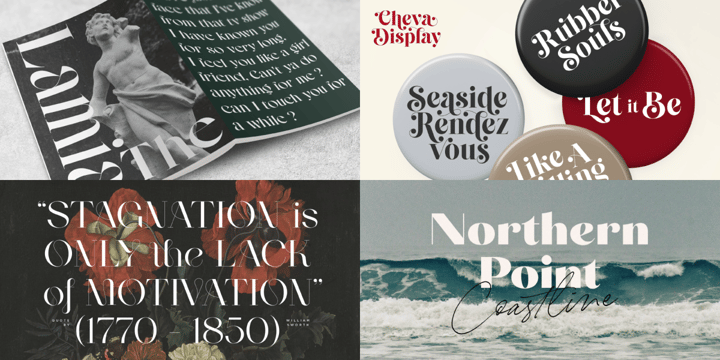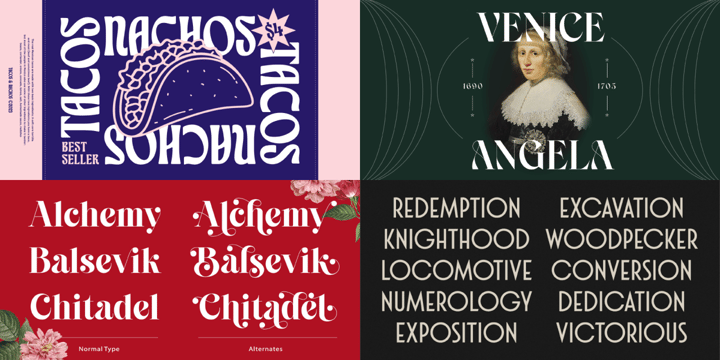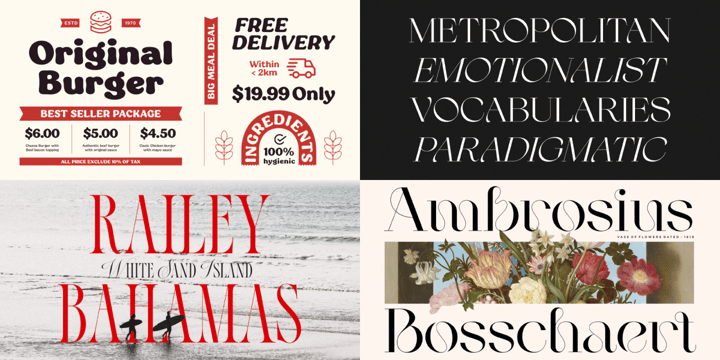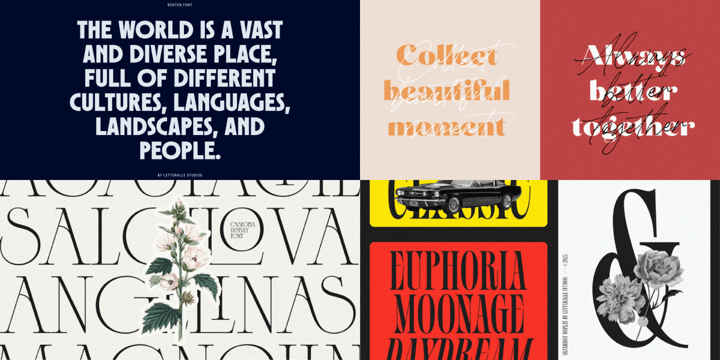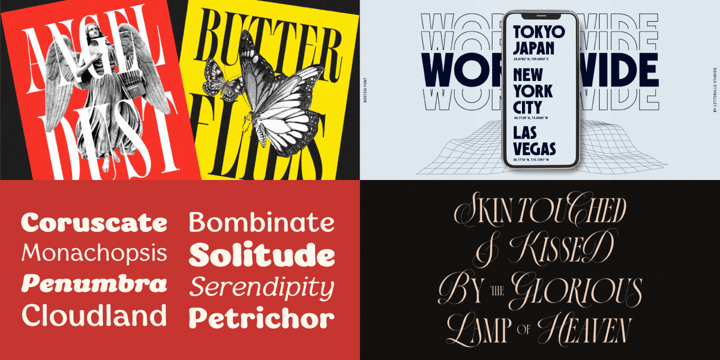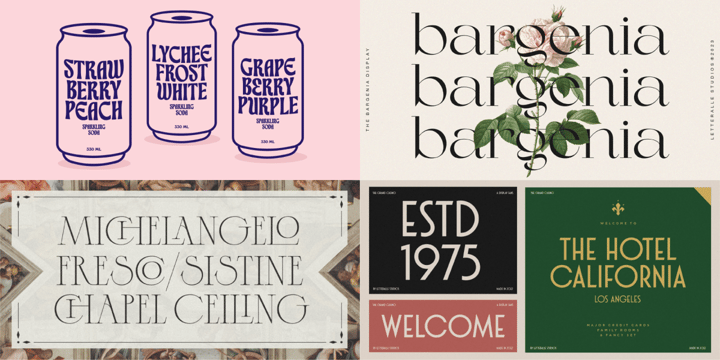
The Essential Display Bundle
Introducing, The Essential Display Font!
a delightful mix of the best display fonts from Letteralle Studios! Explore a harmonious blend of serif and sans-serif fonts. Elevate your designs effortlessly with this versatile collection!